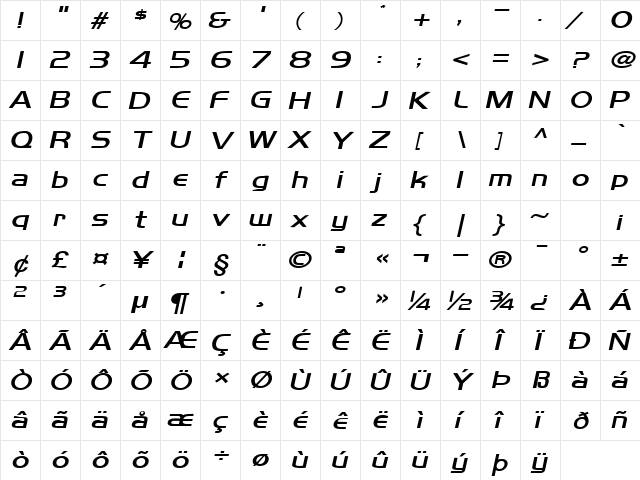
Orbit-Extended Bold Italic Font Preview
Design Context for Orbit-Extended Typeface
Orbit-Extended takes a measured approach to typography — its balanced proportions and neutral character make it a reliable workhorse for both digital and print work. Its italic angle brings a sense of urgency and motion to the letterforms. The heavy weight commands attention and anchors typographic hierarchies.
Pro Tip: Try Orbit-Extended for annotation and caption copy alongside an upright companion — the contrast in angle creates a dynamic but ordered typographic system.